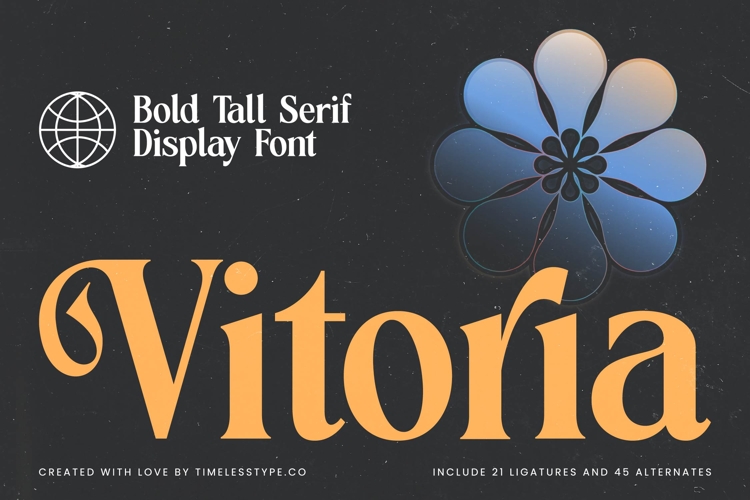
Vitoria - Bold Tall Serif Display Font
Vitoria is a bold tall serif display font that merges timeless elegance with striking modernity. Its elongated proportions, sharp serifs, and refined curves make it a commanding typeface that elevates any design with sophistication and authority. Designed with 21 ligatures and 45 alternates, Vitoria offers creative versatility, giving designers the ability to create unique, expressive compositions that maintain consistency while allowing individuality to shine.
This font is crafted for headline typography, where its tall structure and bold weight instantly grab attention across posters, banners, and editorial layouts. In branding and logo design, Vitoria communicates prestige and confidence, making it an excellent choice for luxury products, fashion houses, boutique businesses, and corporate identities that want to leave a lasting impression. Its bold elegance also makes it ideal for packaging design, particularly for wine, gourmet goods, perfumes, and cosmetics, where strong, refined typography conveys quality and exclusivity.
Vitoria thrives in advertising campaigns, event posters, and promotional graphics, where its alternates and ligatures add sophistication and individuality to bold statements. In digital media and social platforms, it delivers clarity while lending an editorial polish, ensuring brands stand out in competitive environments.
Its adaptability extends to wedding invitations, certificates, book covers, and cultural projects, where elegance and timeless beauty are essential. With multilingual support, Vitoria fits seamlessly into global design projects, broadening its reach for international audiences.
Ultimately, Vitoria is more than a serif—it is a statement of strength and refinement. Whether used for editorials, branding, packaging, or digital content, it ensures every project radiates class, authority, and unforgettable style.